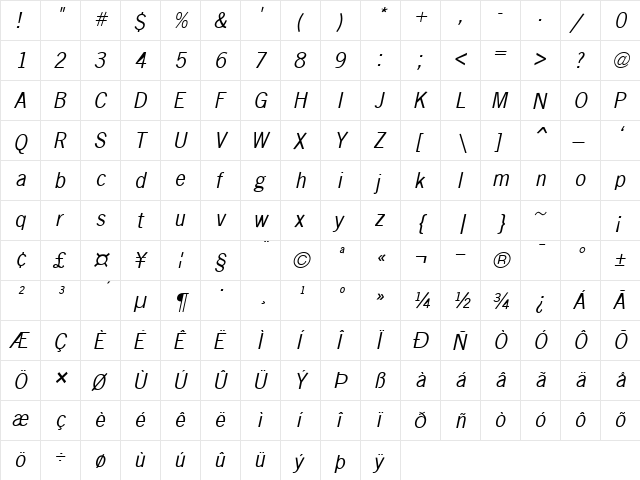
Matterhorn Italic Font Preview
Matterhorn Italic
Design Context for Matterhorn Typeface
Matterhorn offers clean, dependable letterforms without strong stylistic allegiance, making it a practical choice for designers who need flexibility. Its italic angle brings a sense of urgency and motion to the letterforms.
Pro Tip: Use Matterhorn for emphasis, pull quotes, and subheadings where its slanted energy can add rhythm to the layout.